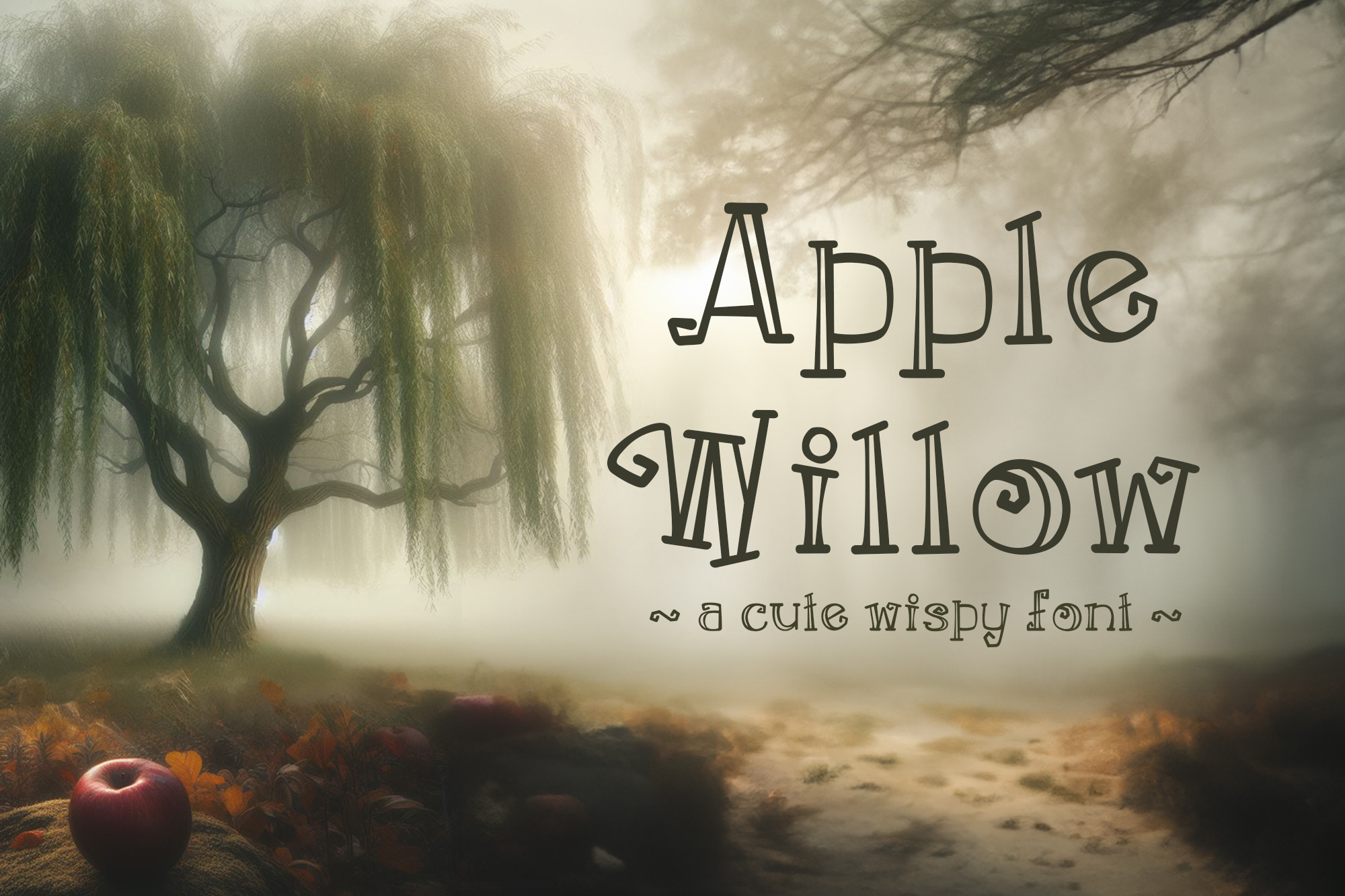
Apple Willow Font - cute wispy font
Introducing the Apple Willow Font - a whimsical and playful font perfect for any creative project. This cute wispy font is now available in both OTF and TTF formats and has been meticulously crafted for a seamless cut on both Cricut and Silhouette machines. Add this unique and charming font to your collection and watch your designs come to life. Whether it's for a logo, branding, or personal project, the Apple Willow Font is sure to impress.